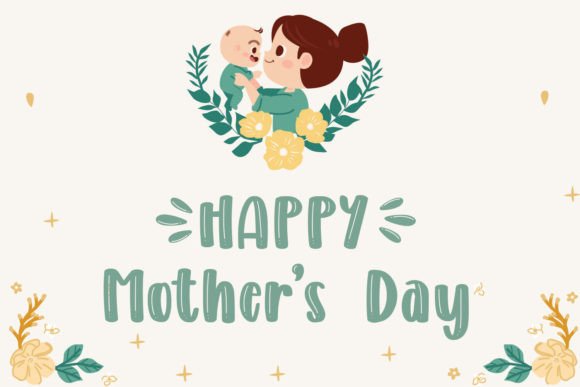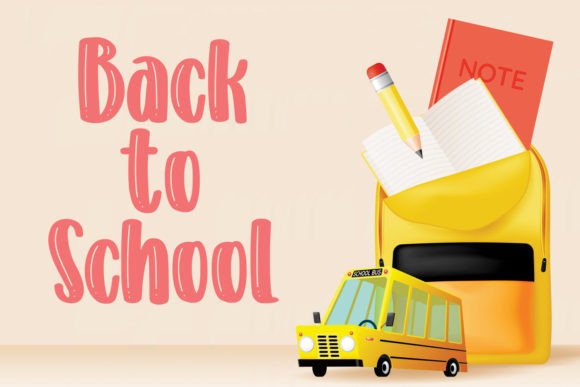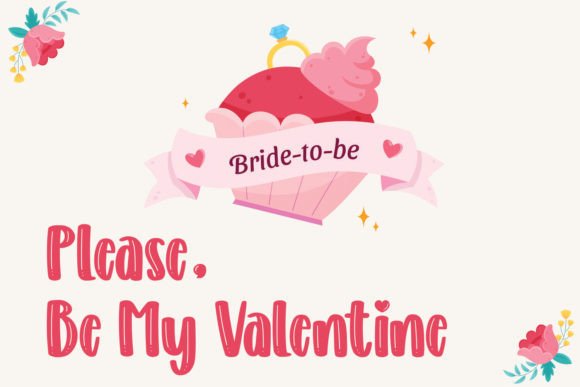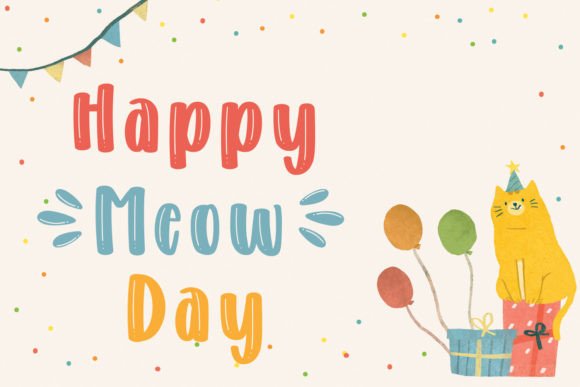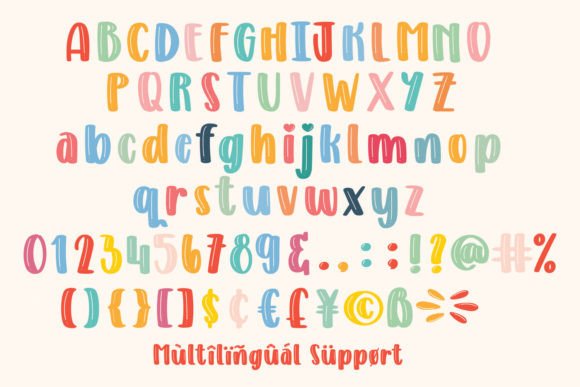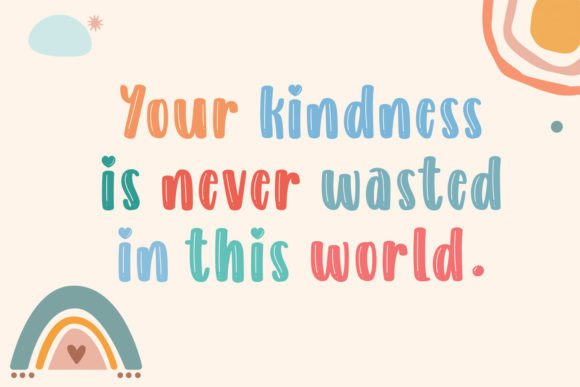
The Dreamy Delight of Dreams Font: A Comprehensive Guide
I’ll never forget the moment I stumbled upon Dreams Font while working on a whimsical spring-themed project for a client. I was on a mission to find the perfect typeface that would capture the essence of cute displays and quirky designs. As I scrolled through my font library, Dreams Font caught my eye, and I knew I had found the one. Its delightful and playful vibe instantly resonated with my design vision, and I couldn’t wait to dive in and explore its features.
An Honest Review of Dreams Font
As a designer, I’m always on the lookout for fonts that can bring a touch of magic to my projects. Here’s what I love about Dreams Font:
- ✨ Playful and whimsical vibe: Dreams Font radiates joy and playfulness, making it perfect for various occasions and themes.
- ✅ Highly versatile: This font can be used for a wide range of projects, from crafting and embroidery to digital displays and print materials.
- 💕 Cute and charming: The font’s quirky design elements will add a touch of personality to any project.
While Dreams Font is a delightful addition to my font library, there are a few quirks to consider:
- 🤔 Limited use in formal contexts: Due to its playful nature, Dreams Font might not be the best choice for formal or professional projects.
- ⚠️ Some glyphs may require manual adjustment: Depending on the platform or software used, some glyphs might require manual adjustment for optimal results.
The Backstory of Dreams Font
According to its designer, Dreams Font was inspired by the world of dreams and imagination. The creator aimed to craft a typeface that would evoke a sense of joy and playfulness, while also being highly versatile and easy to use. By combining quirky design elements with a touch of elegance, Dreams Font was born – a font that’s perfect for designers, crafters, and creative hobbyists alike.
| Font Name | Dreams Font |
| What makes Dreams Font unique? | Dreams Font stands out due to its delightful and whimsical design, which captures the essence of cute displays and quirky designs. |
| Is Dreams Font suitable for formal projects? | While Dreams Font is highly versatile, its playful nature might not make it the best choice for formal or professional projects. |